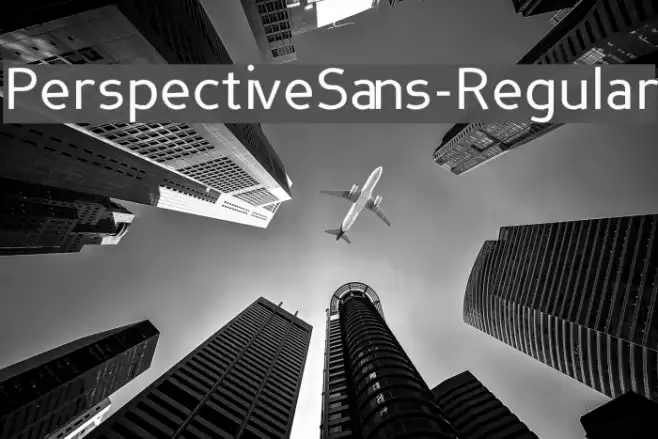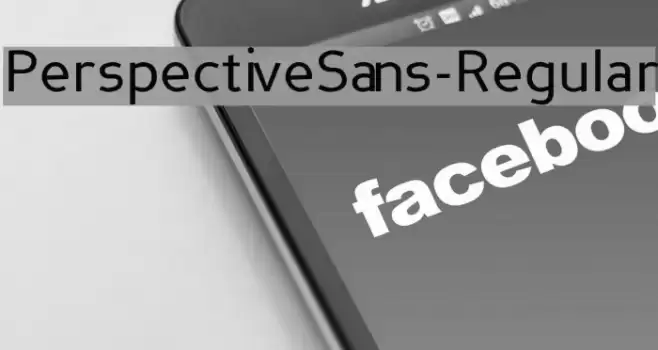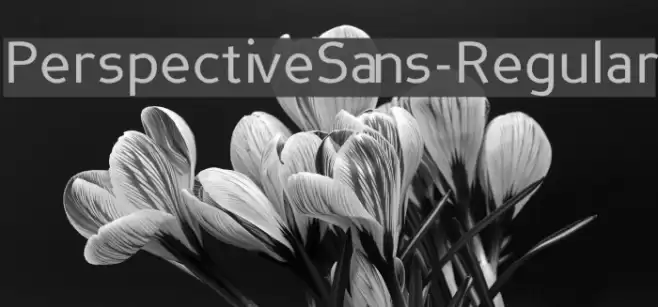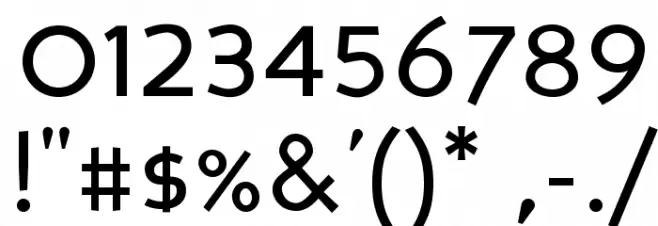
PerspectiveSans-Regular Font
PerspectiveSans-Regular Description
This font features a clean and modern sans-serif design, characterized by its simplicity and readability. The letters are evenly spaced with a consistent stroke width, providing a balanced and harmonious appearance. The uppercase and lowercase letters are well-proportioned, making it suitable for both display and body text. The numerals are clear and distinct, ensuring legibility in various contexts. Special characters are designed with the same attention to detail, maintaining the overall aesthetic of the font. Its straightforward style makes it versatile for numerous applications.
A clean, modern sans-serif font with balanced proportions and excellent readability from Uncategorized fonts.
- Proposed Projects: Ideal for web design, branding, corporate materials, and editorial content.
- Use Case: Headlines, Body text, Logos